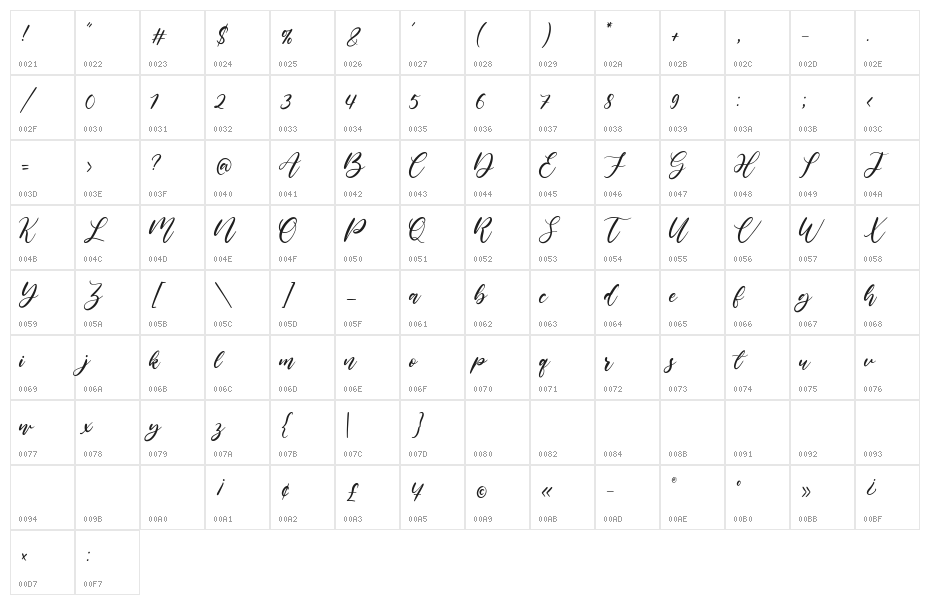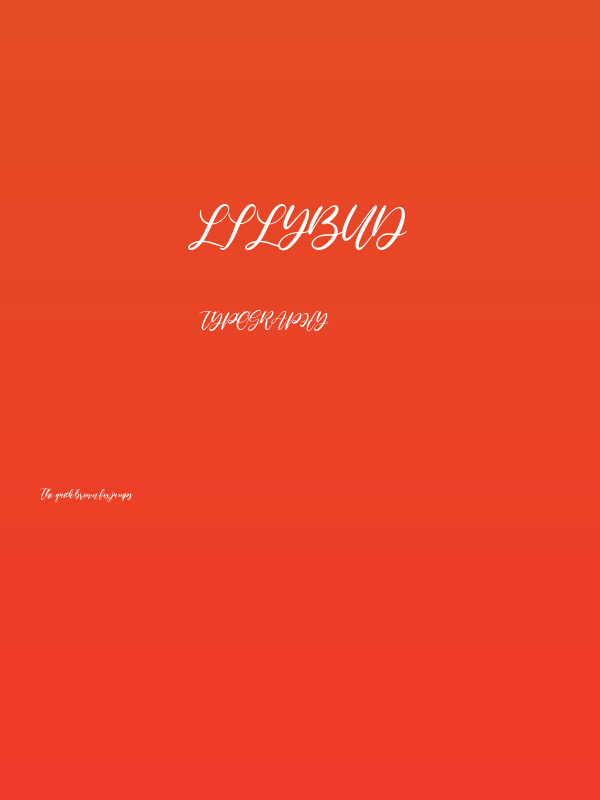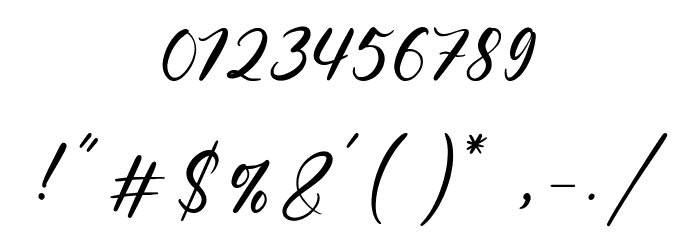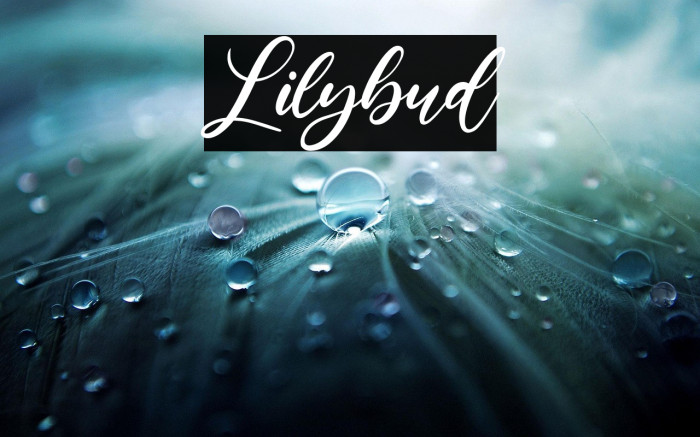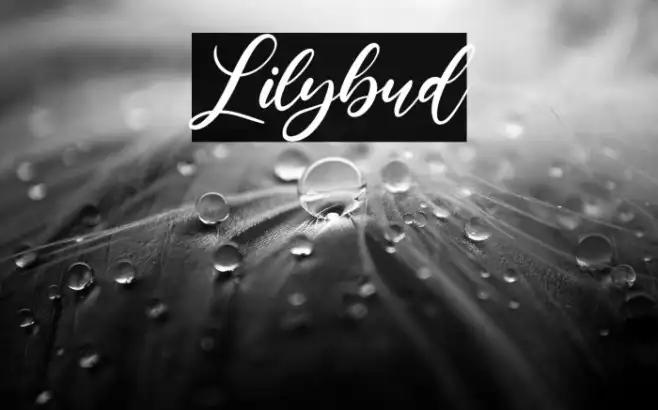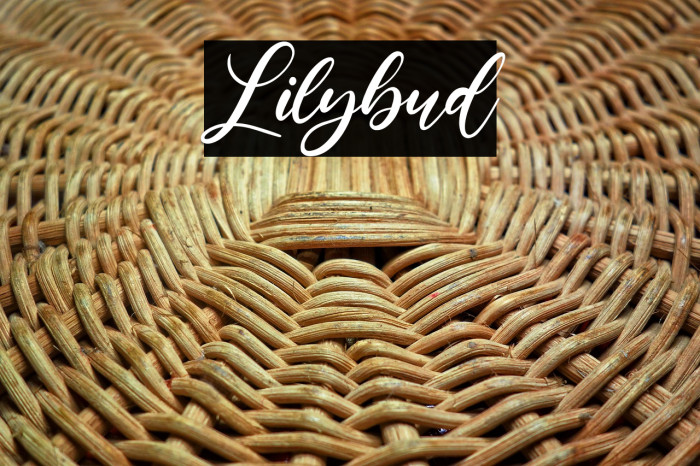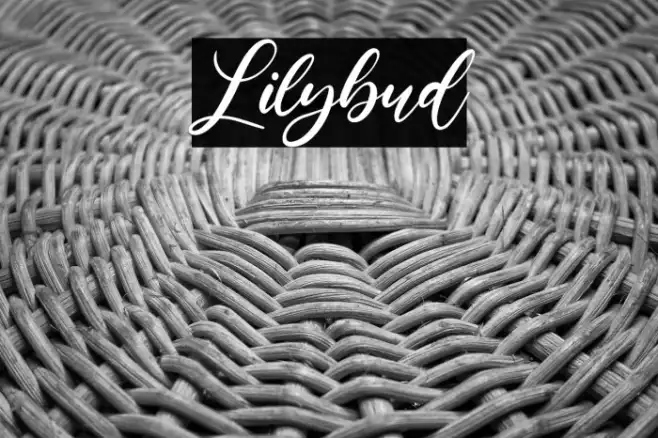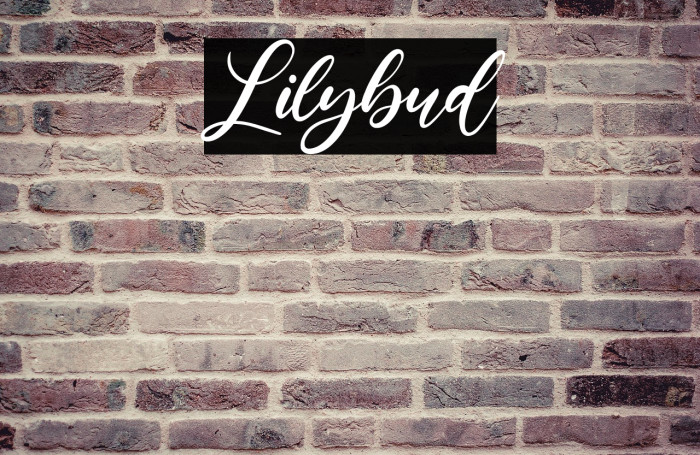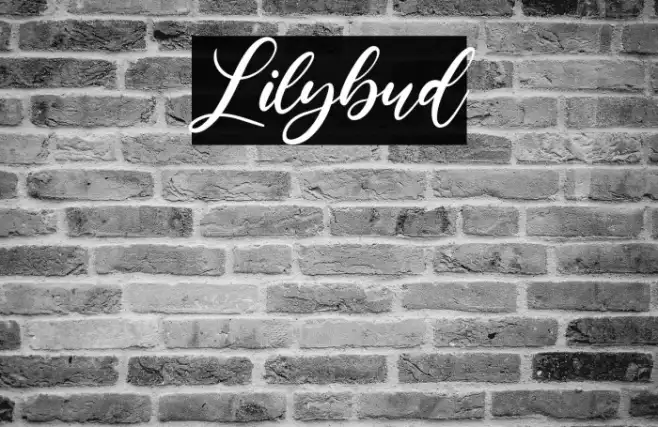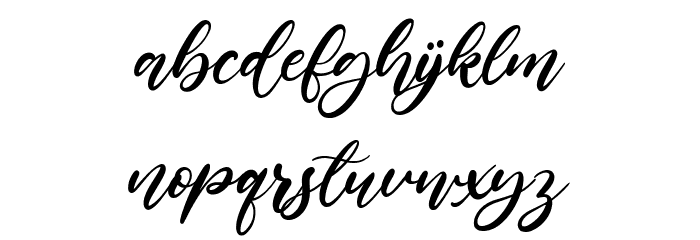
Lilybud Font
Lilybud Description
This font exudes elegance and sophistication with its flowing, cursive style. The letters are intricately designed, featuring smooth curves and delicate loops that give it a handwritten appearance. The uppercase letters are bold and striking, while the lowercase letters maintain a graceful continuity. Numbers and special characters are crafted with the same attention to detail, ensuring a cohesive look across all elements. The font's overall aesthetic is both classic and modern, making it versatile for various design needs.
| Overall Style | Elegant, Classic |
| Proposed Projects | Ideal for wedding invitations, branding, greeting cards, and elegant packaging. |